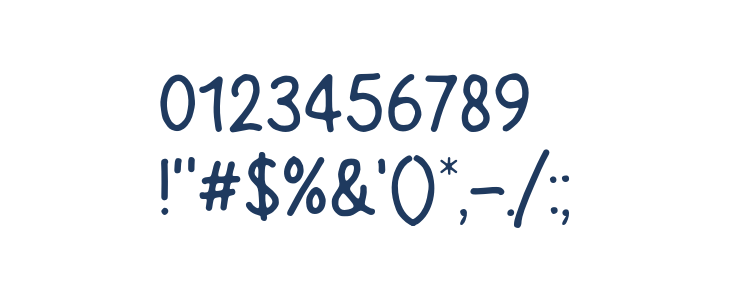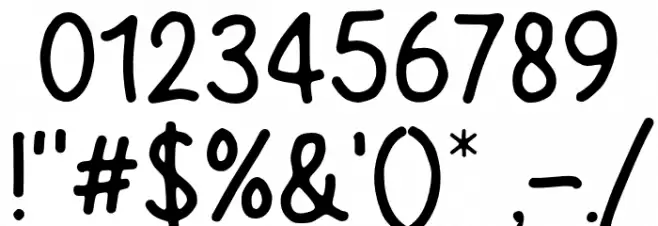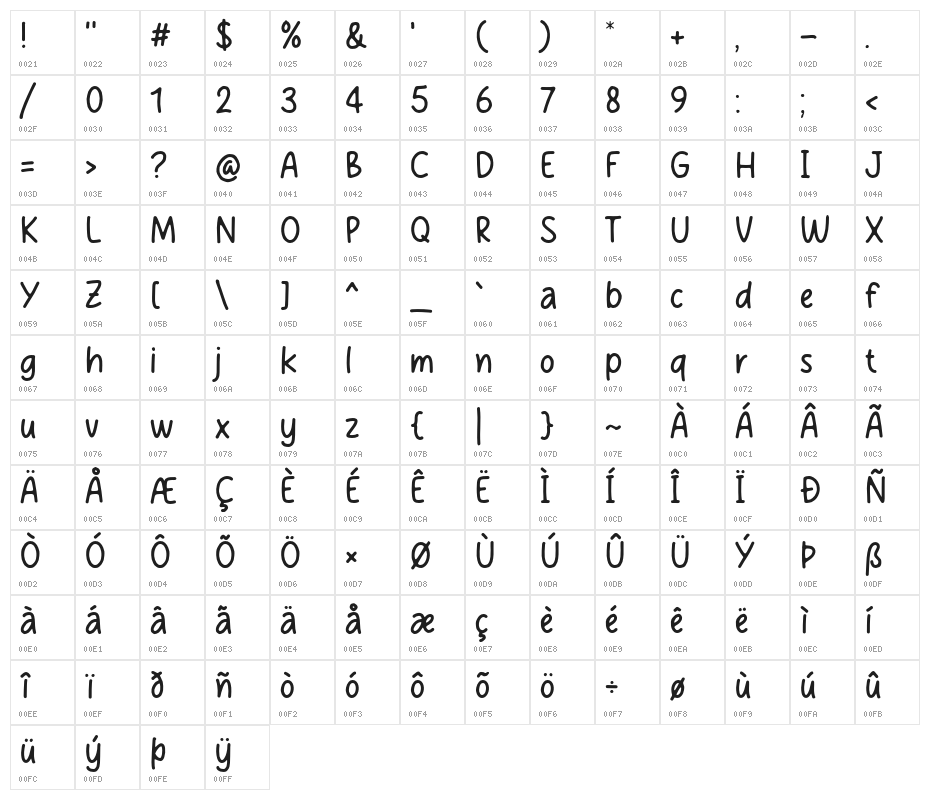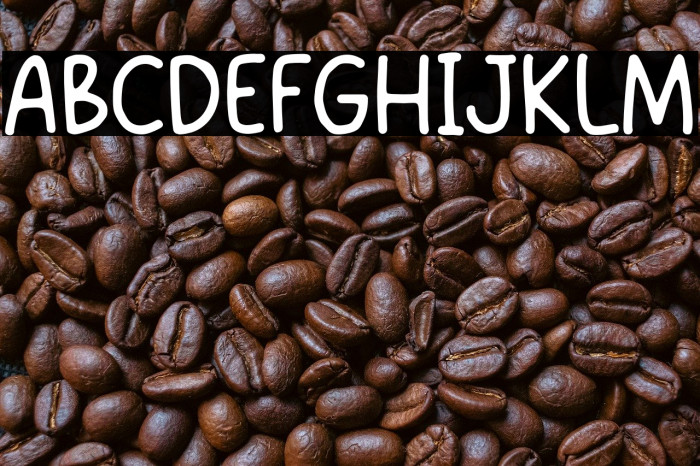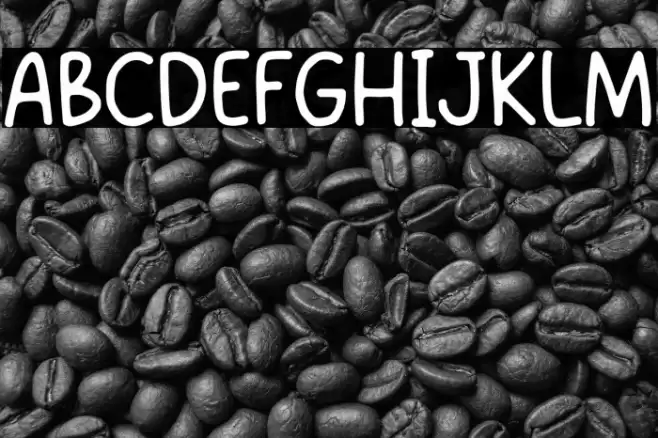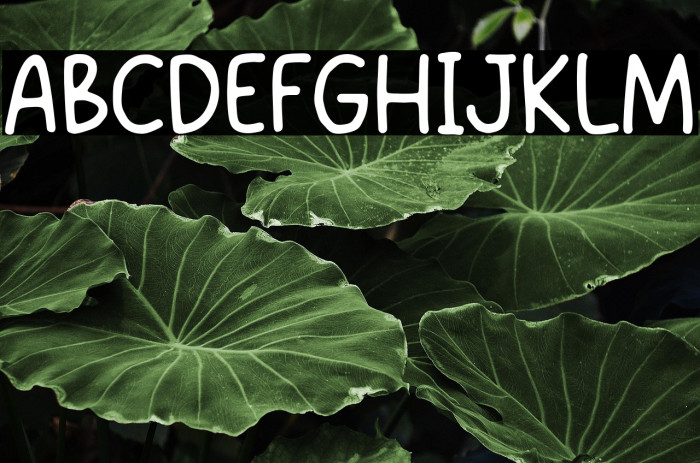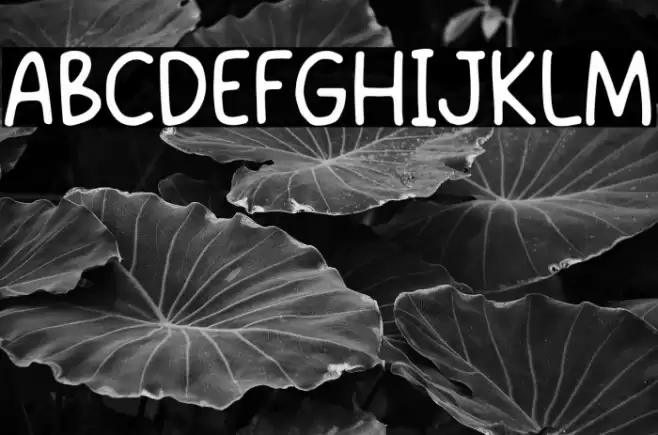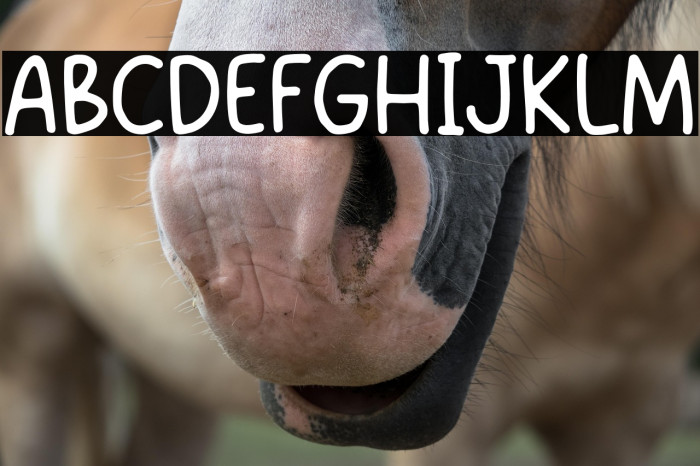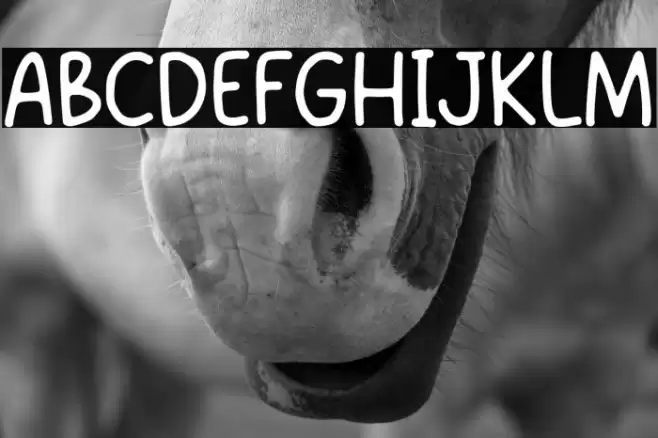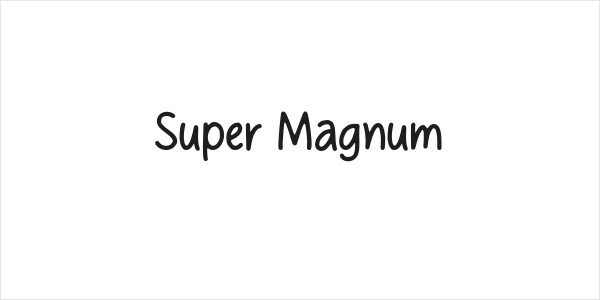
Super Magnum Font
Super Magnum Description
This font features a playful and informal style, characterized by its rounded and slightly irregular letterforms. The strokes are consistent in thickness, giving it a uniform appearance, yet the slight variations in the curves and angles add a touch of whimsy and personality. The uppercase and lowercase letters are well-balanced, with a friendly and approachable aesthetic. The numerals and special characters maintain the same playful quality, making the font versatile for various creative applications.
| Use Case | Logos, Headlines, Informal text |
| Proposed Projects | Ideal for children's books, playful branding, greeting cards, and casual invitations. |